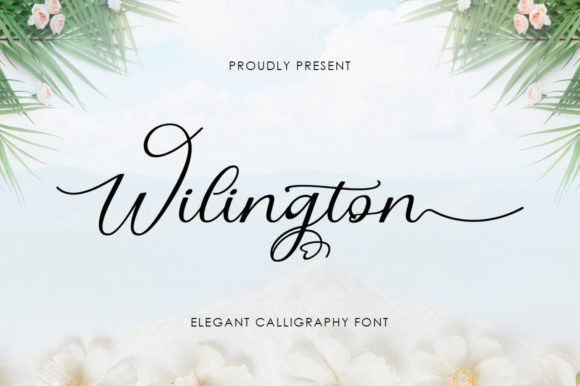
Wilington Font
Wilington FontWilington is an enchanting handwritten font. This versatile script font has a wide spectrum of applications ranging from greeting cards to headlines and is guaranteed to add a romantic feel to your next project.